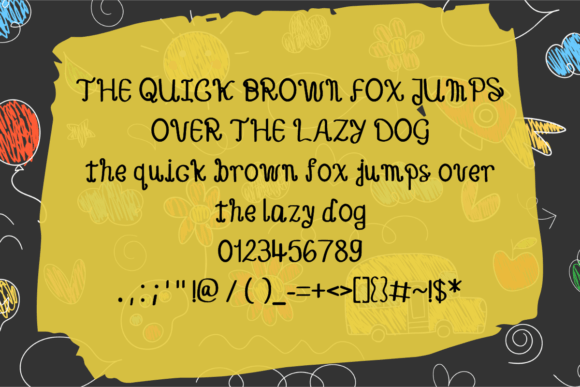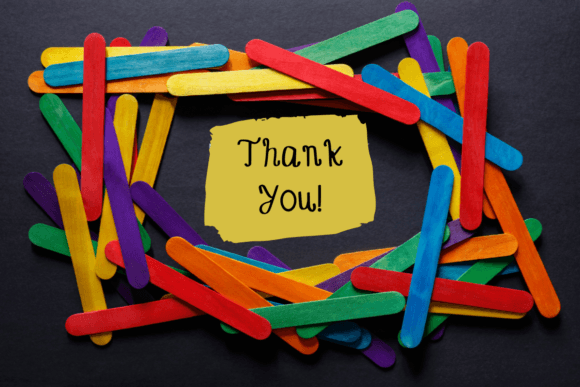
Curvy Script Font
About Curvy Script Font
Curvy Script is a quirky and modern handwritten font. Its playful and friendly style makes it suitable for lots of designs and projects. This font will give your projects an informal and nice look! Add it to your creative ideas and designs and make them stand out!